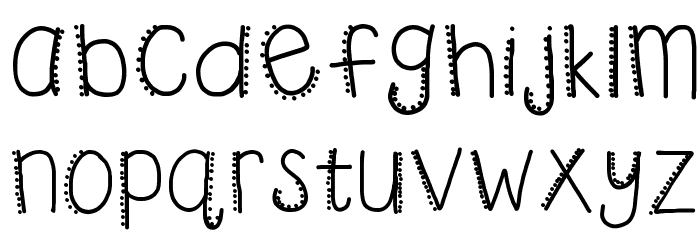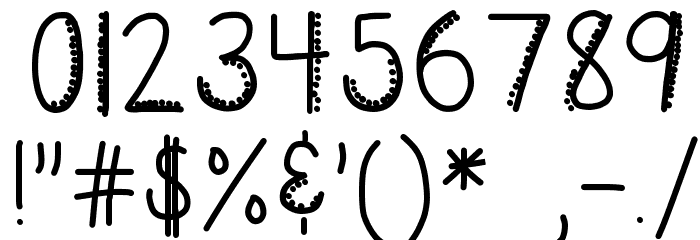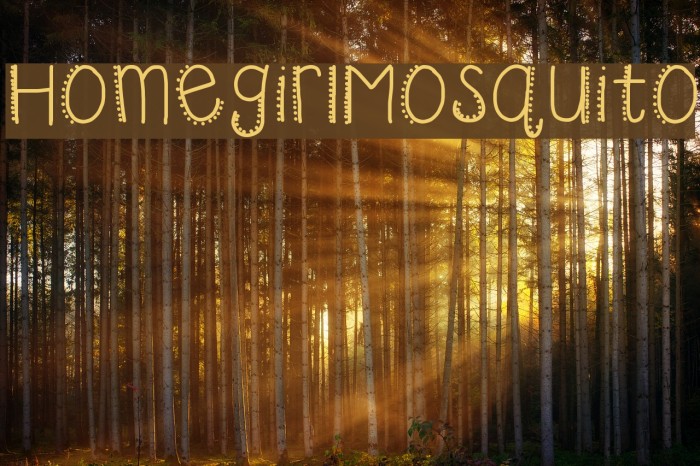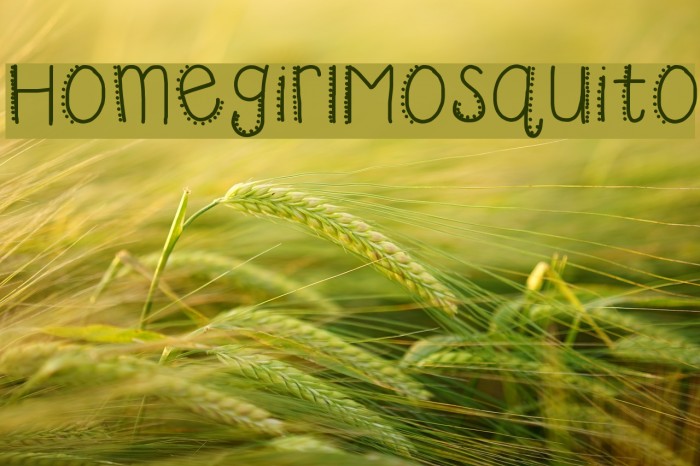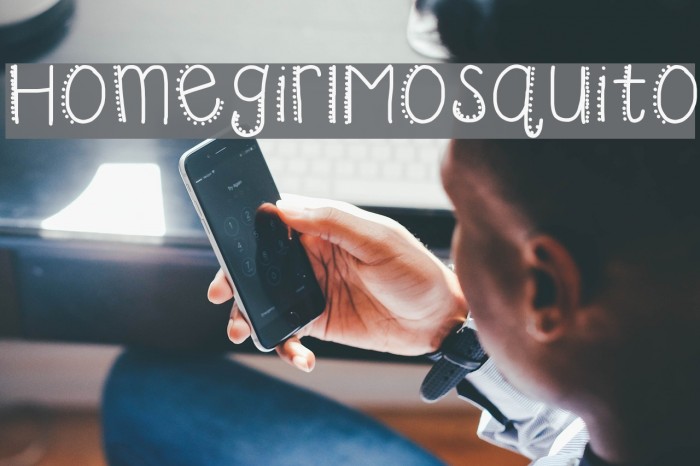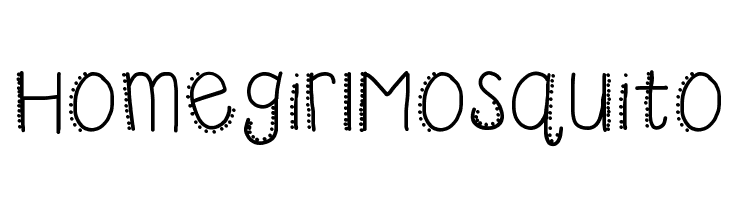
HomegirlMosquito Font
This playful and whimsical font features a unique dotted outline that adds a touch of fun and creativity to each character. The letters are slightly irregular, giving them a hand-drawn feel that is both charming and approachable. The uppercase and lowercase letters maintain a consistent style, with rounded edges and a casual flair. Numbers and special characters are designed with the same dotted detail, ensuring a cohesive look across all text elements. This font is perfect for projects that require a lighthearted and informal touch, making it ideal for children's books, greeting cards, and playful branding.
A playful, dotted outline font with a hand-drawn, whimsical style.
- Proposed Projects: Ideal for children's books, greeting cards, playful branding, and creative projects.
- Overall Style: Whimsical